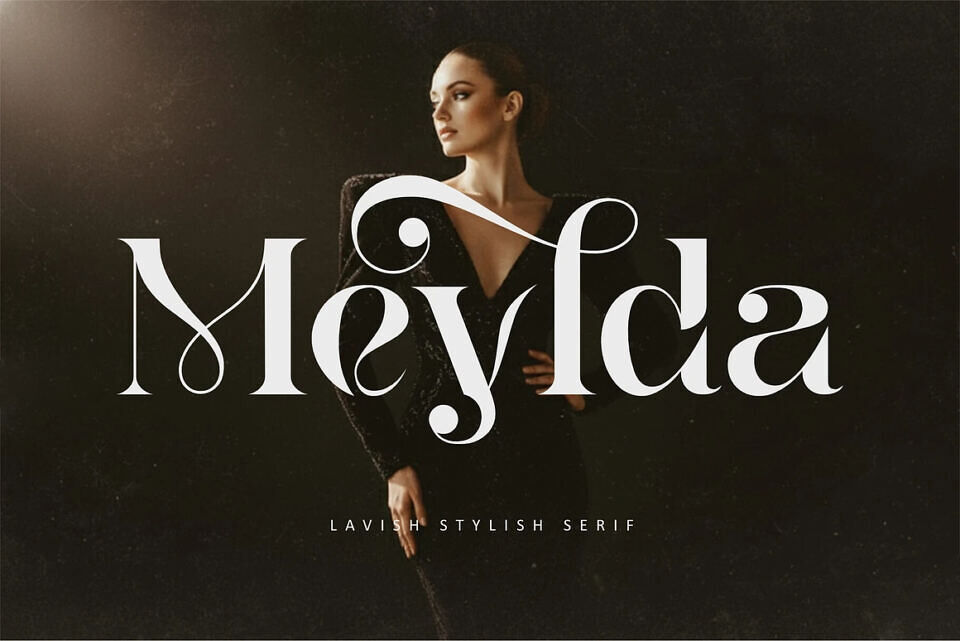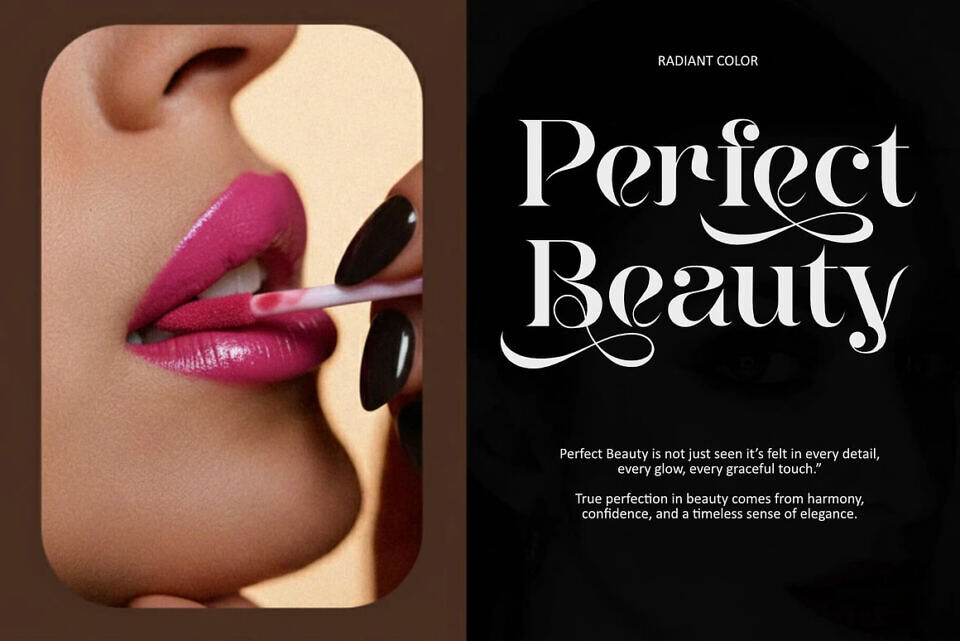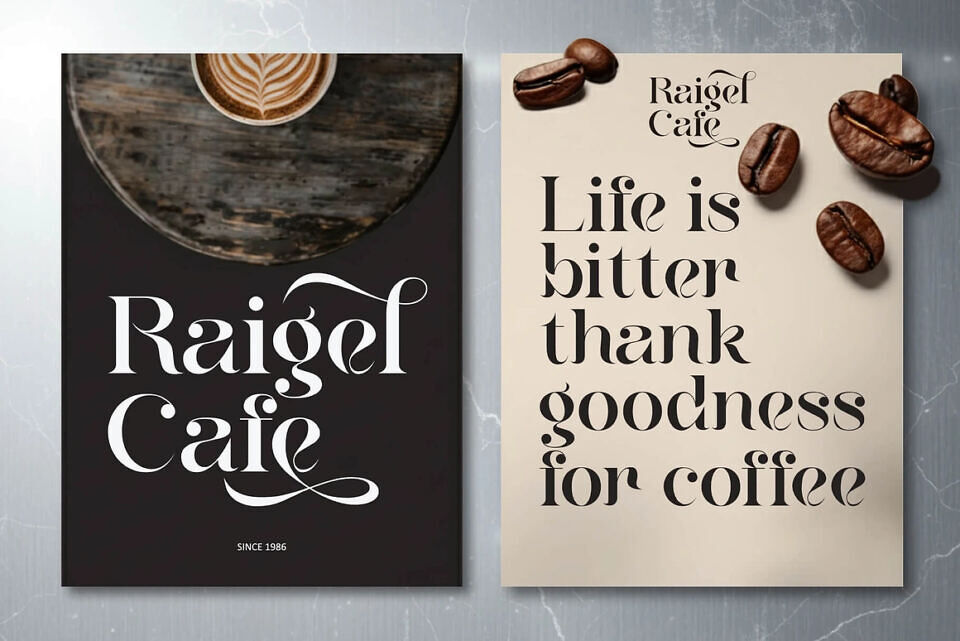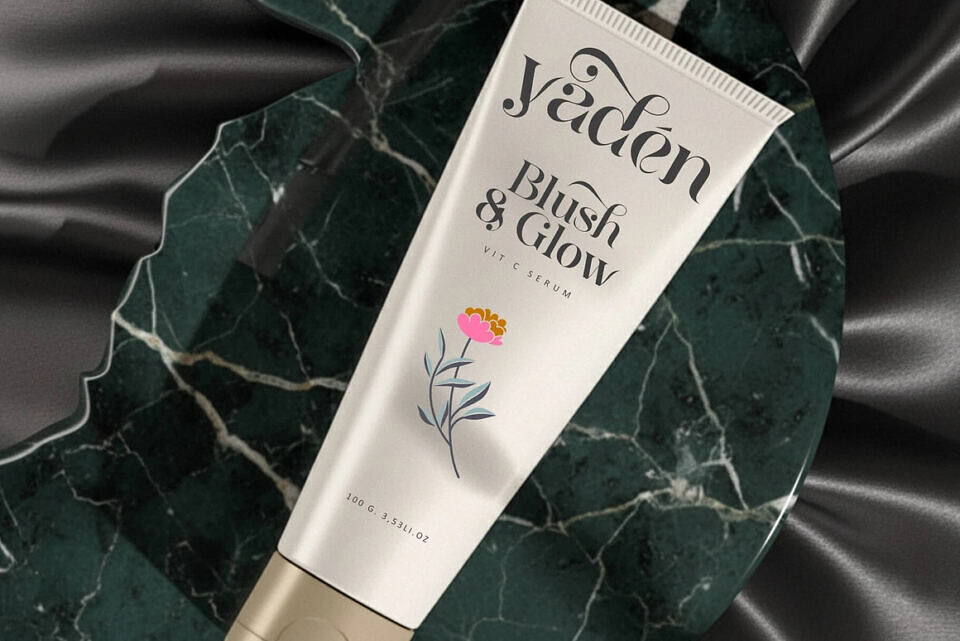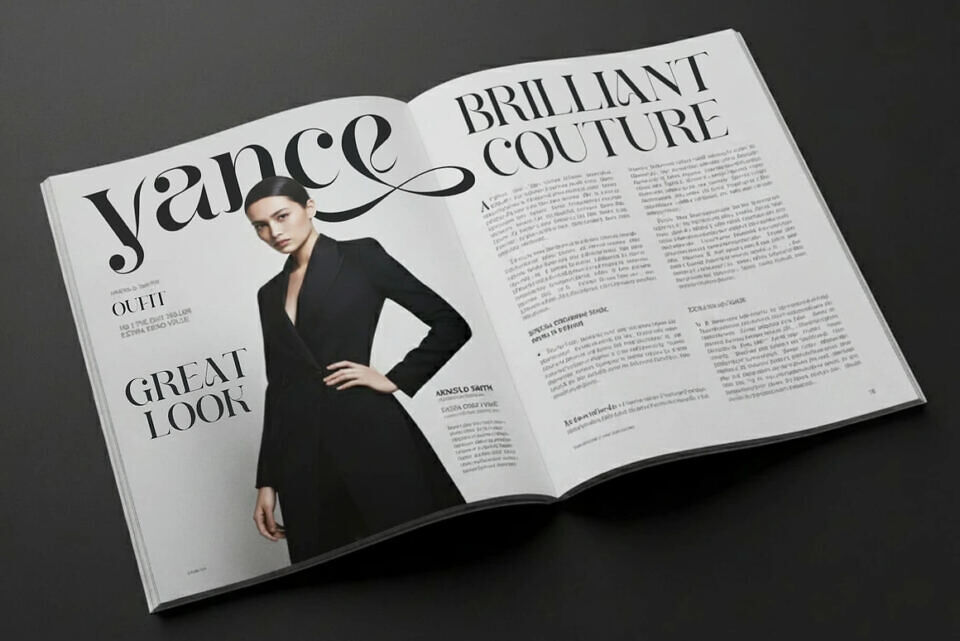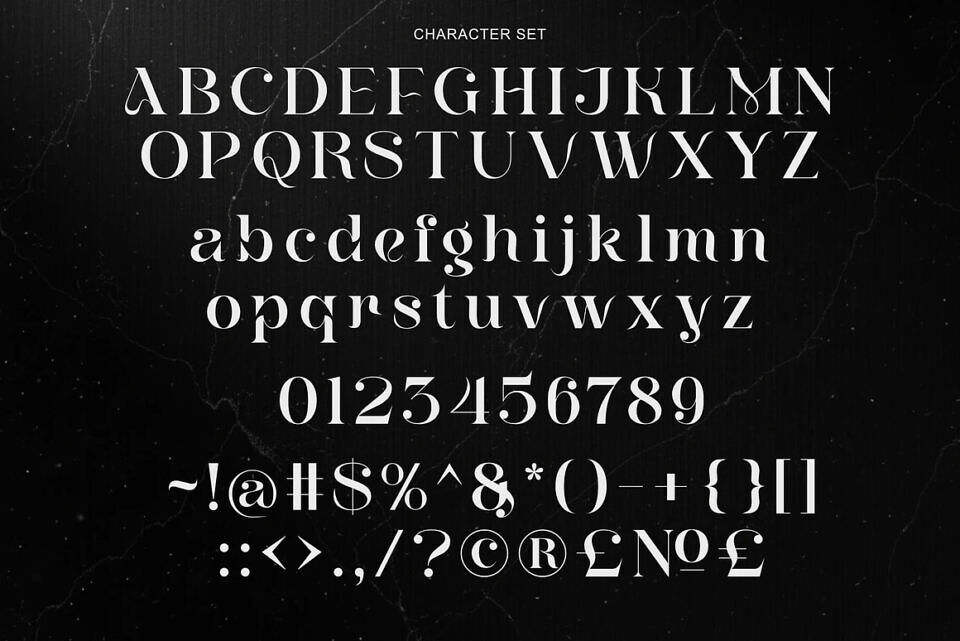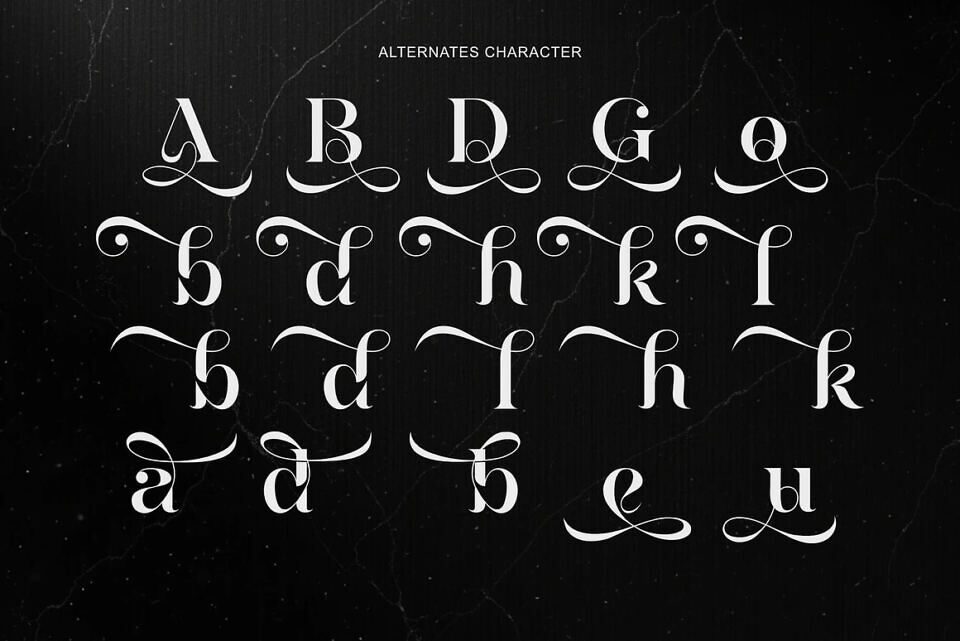
Meylda Font
Meylda is a luxurious serif typeface crafted with elegant curves and exquisite ornamental details. Designed to deliver a premium and sophisticated look, this font blends classic serif structures with graceful swashes, creating a timeless and stylish typographic expression. Every letter is shaped with artistic precision, making Meylda perfect for projects that demand elegance and high–end aesthetics.
This typeface is ideal for fashion branding, boutique logos, editorial magazines, beauty products, café branding, wedding designs, and premium packaging. Its refined contrast and decorative strokes bring a captivating presence to any design.